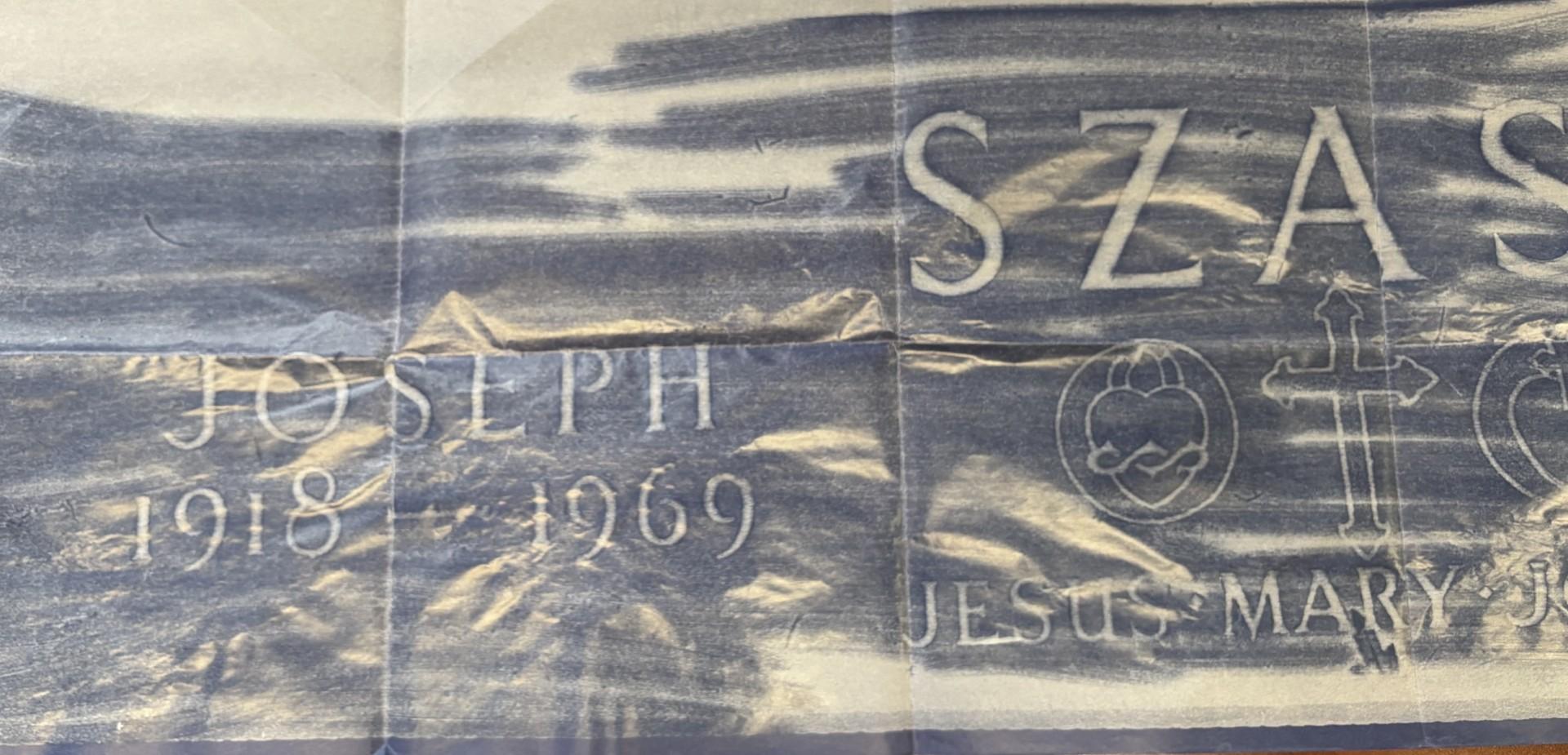
Is this Baker Signet?
The Baker Signet BT I am often using has some differences with this font. Know if another variation of Baker Signet matches this font?
This appears to be hand-drawn lettering. In the 1960s there were only a few “fonts” available for reproducing lettering in the form of plastic or metal letters, and at that time they were all memorial industry specific styles. Though it was possible to hand-draw lettering styles based on existing typefaces, fonts like Baker Signet were not used on memorials until sometime in the 1990s as the digital era was underway.